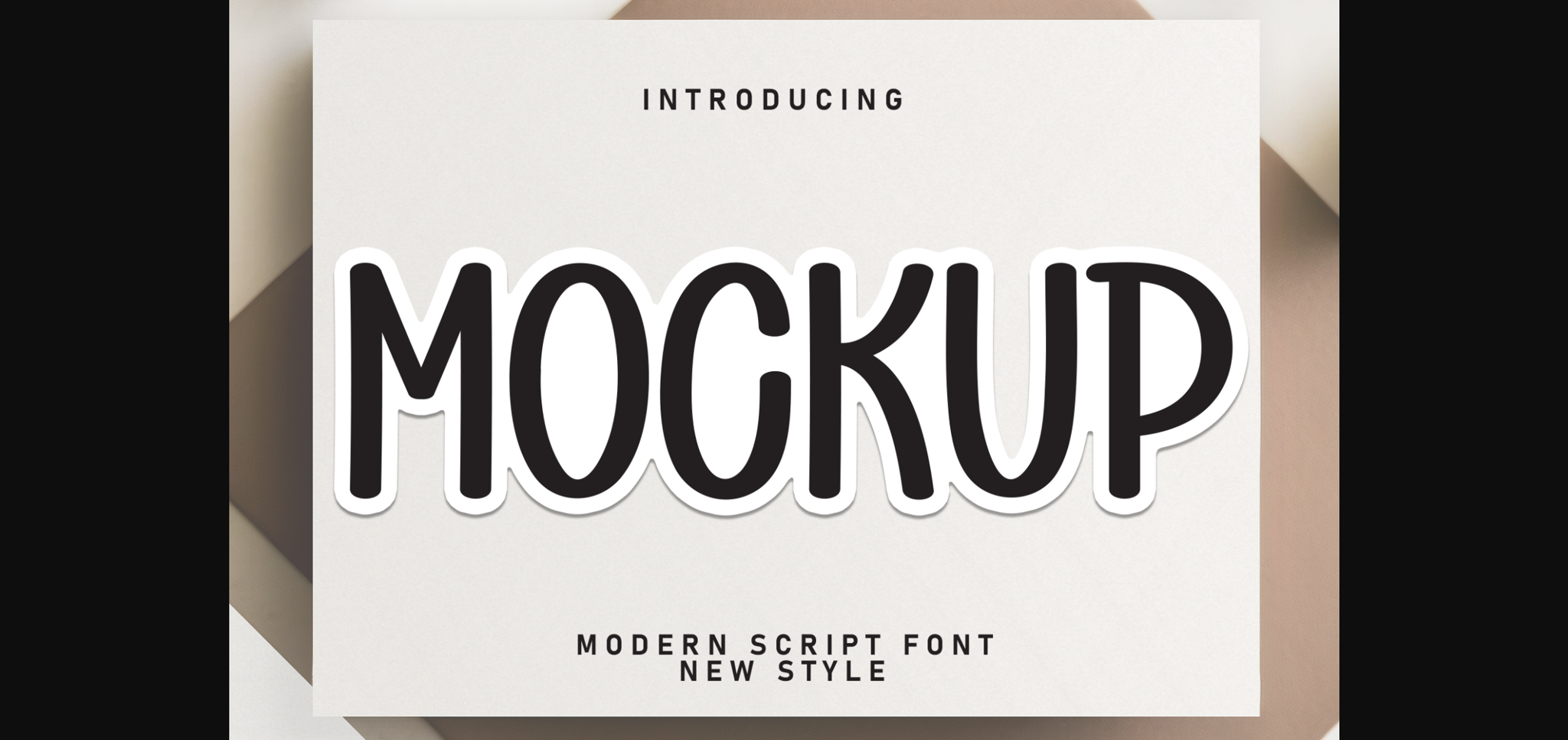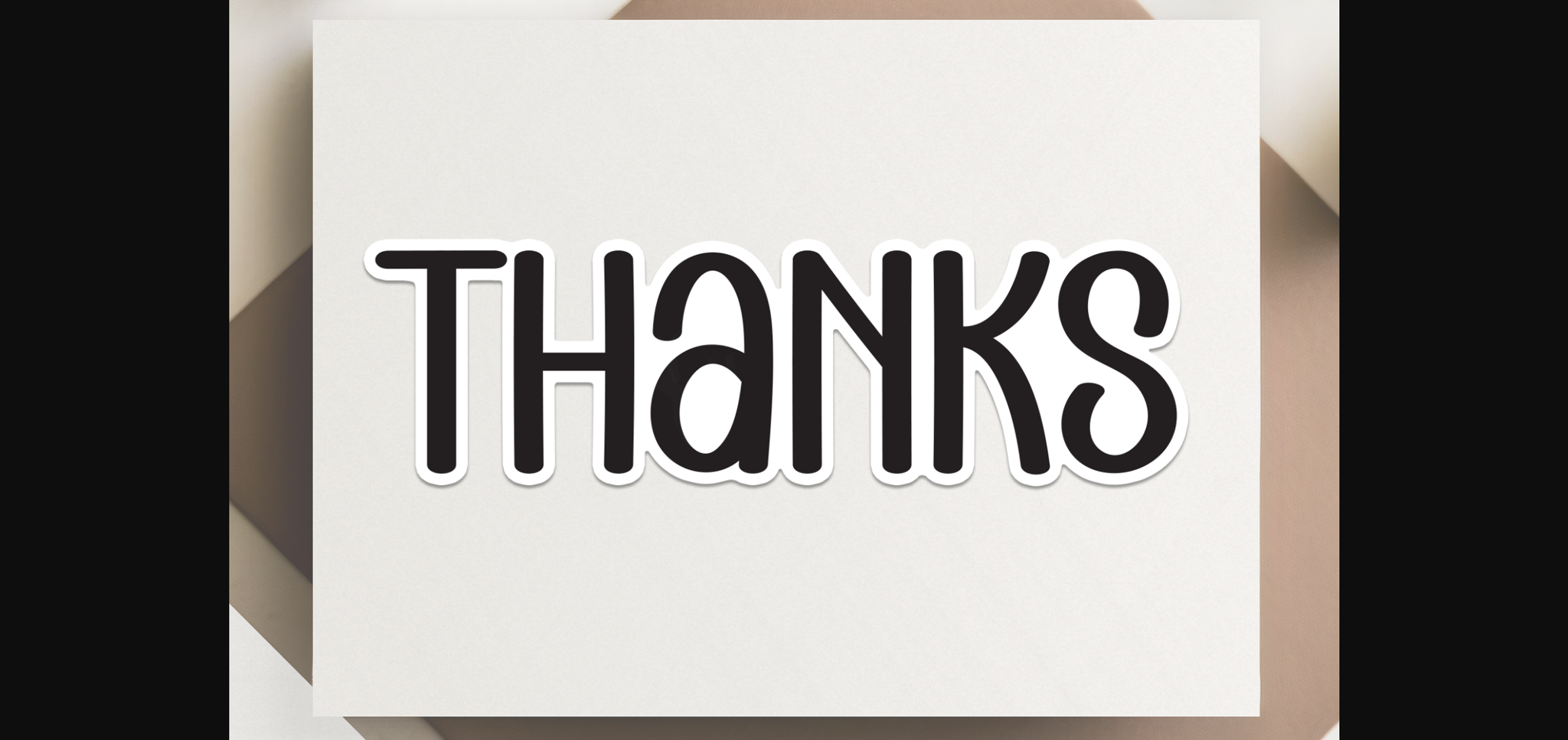
About Mockup Font
Crafted with affection and a playful touch, Mockup is the perfect companion for wedding invitations and cards, infusing them with an irresistible, fun-filled vibe. Exude warmth and unparalleled panache in every creation with our goofy, yet adorable font.